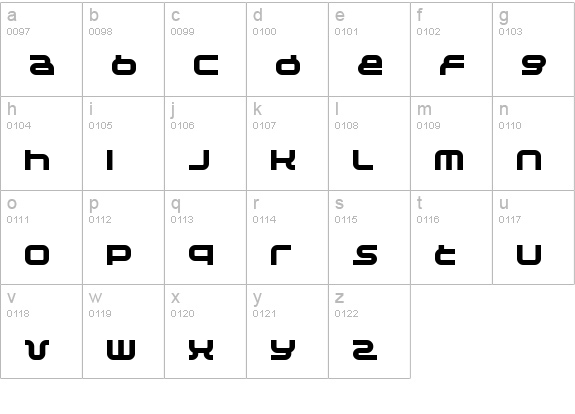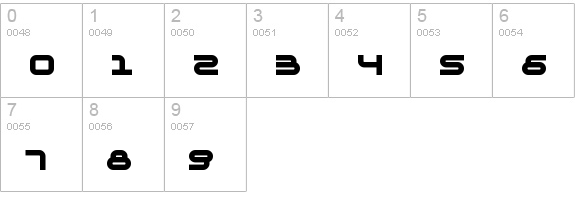
Negative 24 Font Details
Negative 24 font is a unique and eye-catching display font that exudes a sense of boldness and sophistication. With its sharp angles and modern design, Negative 24 font is perfect for creating attention-grabbing headlines, posters, and branding materials. This font is versatile and can be used for various design projects, adding a touch of edginess and style. What makes Negative 24 font even more appealing is that it is available for free download at FontsMarket.com. Now you can easily access this striking font and elevate your design projects without any cost. Don't miss out on the opportunity to enhance your creative work with Negative 24 font - download it today and let your designs stand out from the crowd!